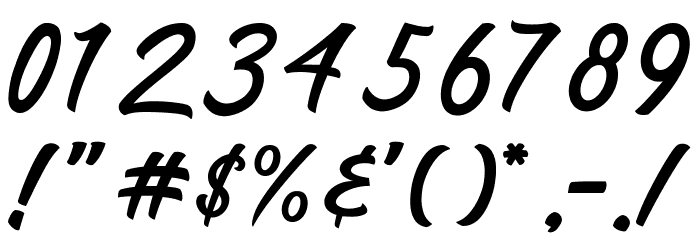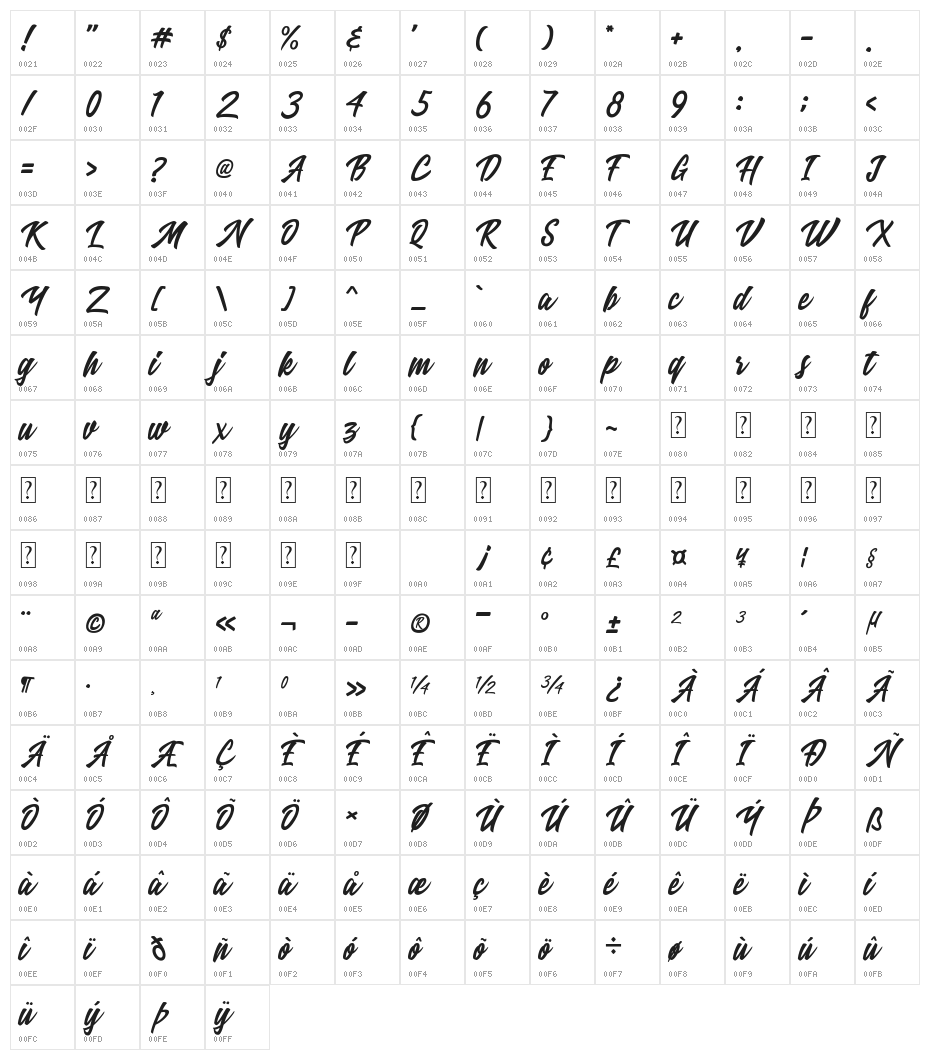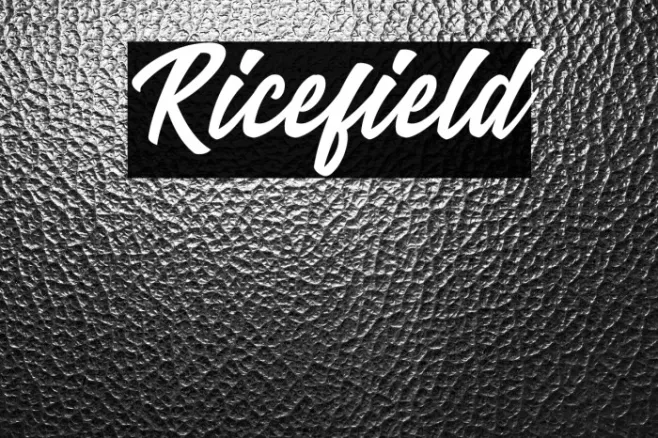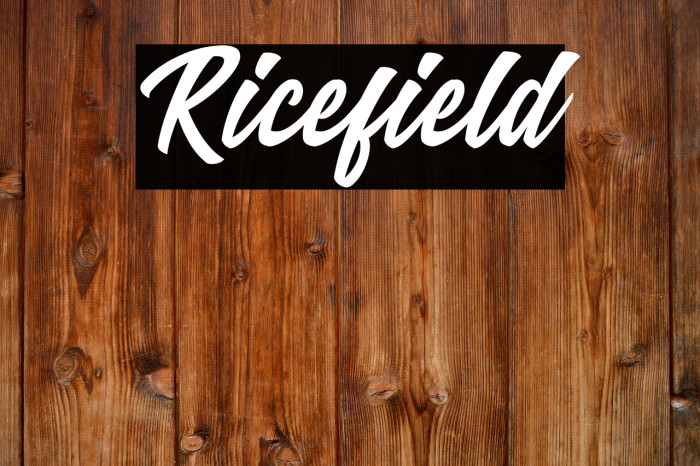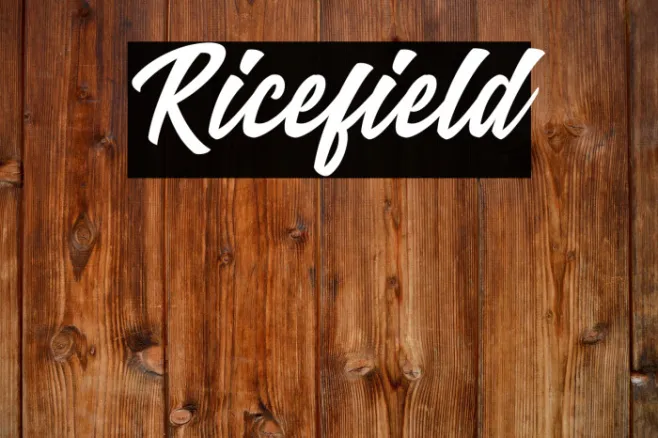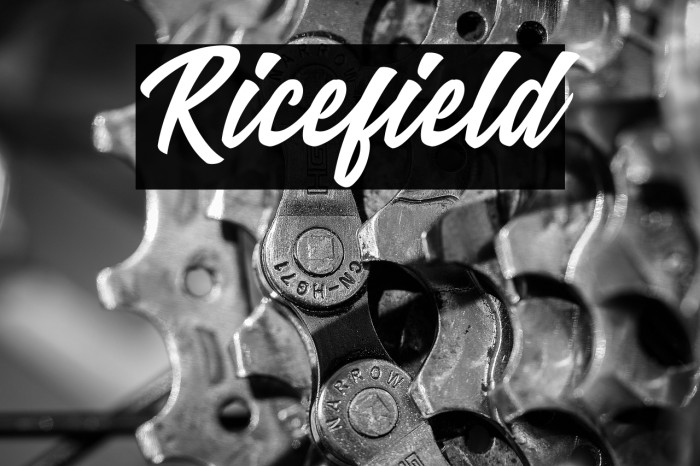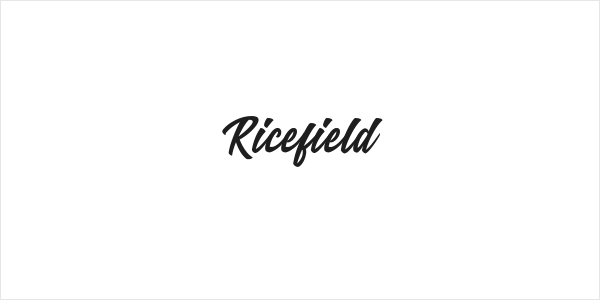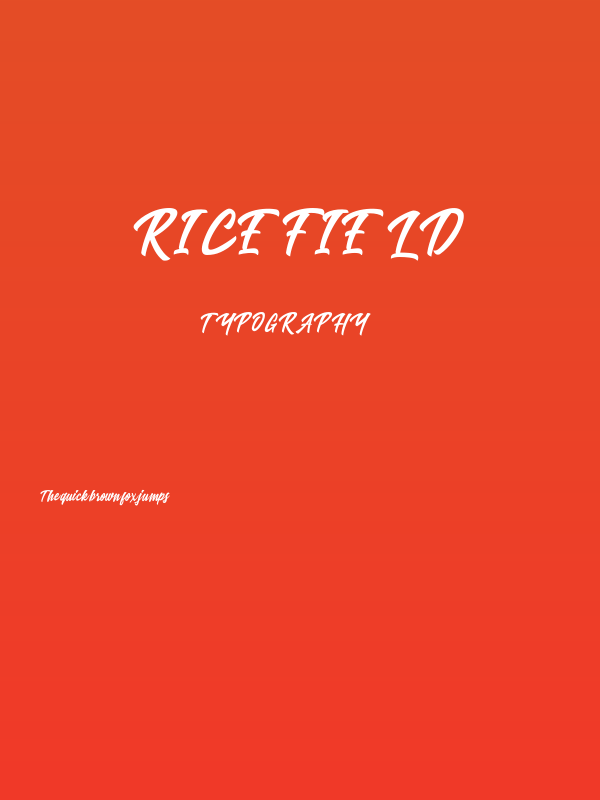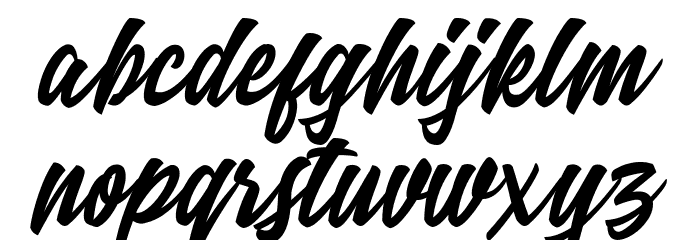
Ricefield Font
Ricefield Description
This font features a dynamic and flowing script style that exudes a sense of elegance and movement. The uppercase letters are bold and slightly slanted, giving them a sense of forward momentum. The lowercase letters maintain a consistent flow with smooth curves and a harmonious balance. The numerals are clear and distinct, matching the overall style of the alphabet. Special characters are thoughtfully designed to complement the script's aesthetic, making it versatile for various uses. The font's bold strokes and slight slant create a sense of energy and sophistication, suitable for projects that require a touch of elegance and flair.
| Overall Style | Elegant, Dynamic |
| Proposed Projects | Ideal for wedding invitations, branding, logo design, and elegant stationery. |